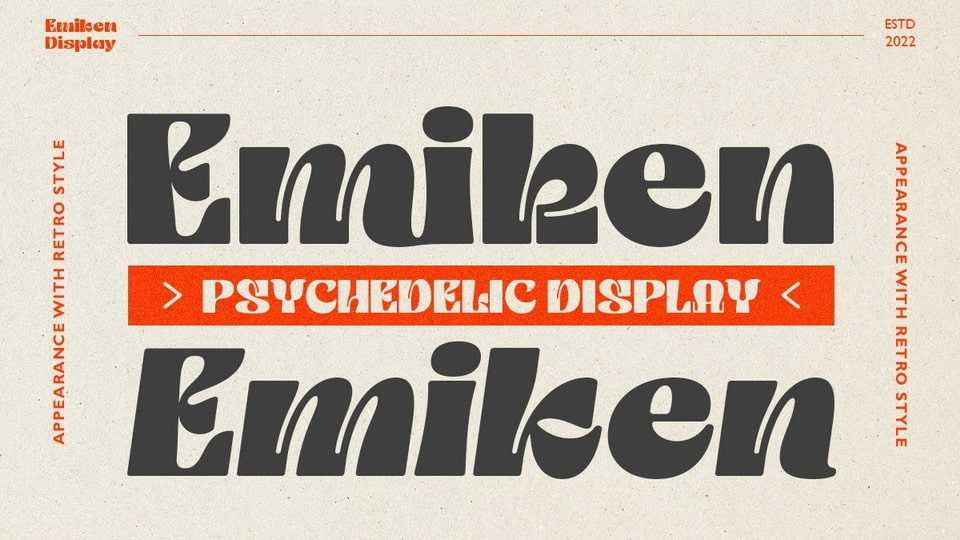
Download Emiken Display font, a contemporary typeface with lots of psychedelic vibes that comes with an emotional character that is bold to read. Emiken Display is very suitable for logo designs, badges, web layouts, headers, packaging and many others.